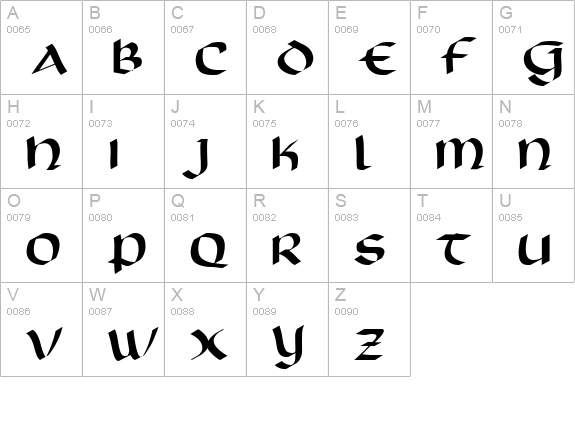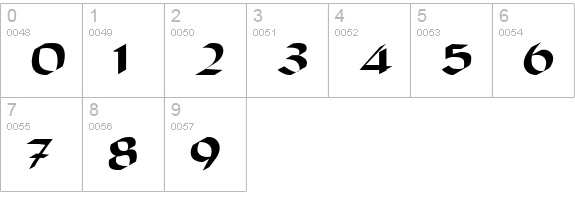
Scotford Regular Font Details
Scotford Regular is the standard, neutral variant in the Scotford typeface family \xE2\x80\x94 well suited to general body text, paragraphs, and standard typographic work.
Scotford Regular font is a versatile and timeless typeface that exudes elegance and sophistication. With its clean lines and balanced letterforms, this font is perfect for a wide range of design projects, from branding and advertising to editorial layouts and invitations. The beauty of Scotford Regular lies in its simplicity. The carefully crafted letter shapes are easy to read and make a strong visual impact, while still maintaining a sense of warmth and approachability. The font's classic and timeless design ensures that it will never go out of style, making it a reliable choice for any designer or typographer. One of the best things about Scotford Regular font is that it is available for free! That's right, you can download this stunning typeface at FontsMarket.com without spending a dime. Whether you're a professional graphic designer or a casual hobbyist, having access to high-quality fonts like Scotford Regular can greatly enhance your creative projects. With its extensive character set, including multilingual support, you can use Scotford Regular to create visually stunning typography in various languages. Its versatility allows for seamless integration into any design concept, whether it's a modern minimalist aesthetic or a more traditional and ornamental style. So why wait? Download Scotford Regular font for free at FontsMarket.com and elevate your design projects to the next level. With its timeless appeal and accessible availability, this font is a must-have for any designer looking to make a lasting impression.